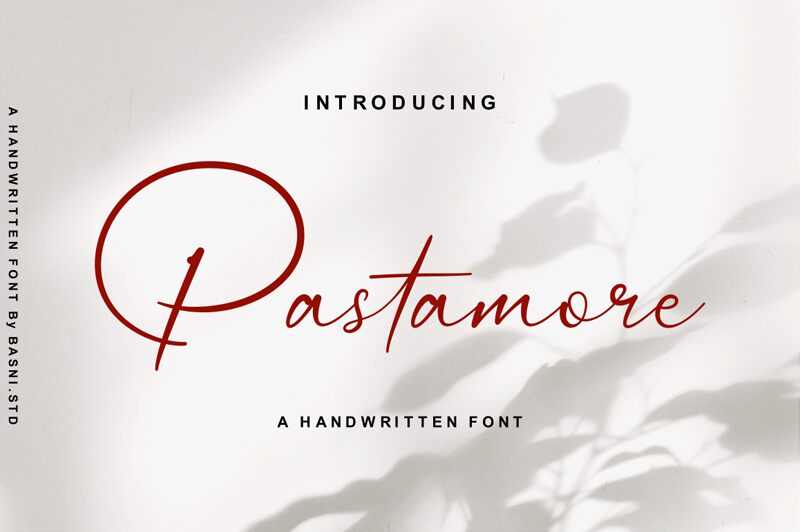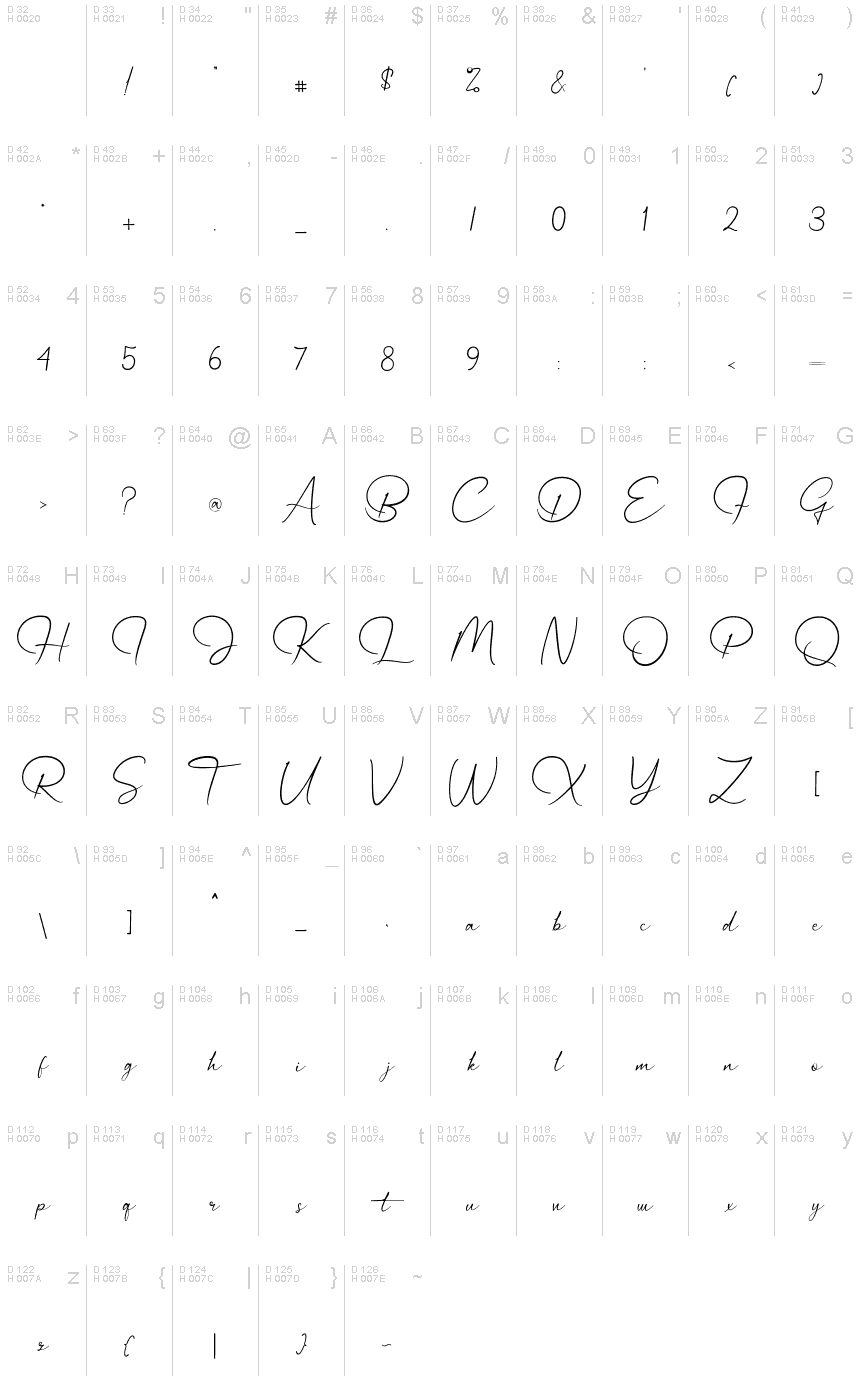
Pastamore
Pastamore is a charming and whimsical handwritten font designed by Basni.std, perfect for adding a touch of playfulness to any project. With its light weight, this font exudes an airy and delicate feel that's ideal for designs that require a softer touch. Pastamore's loose strokes and organic flow make it an excellent choice for invitations, greeting cards, or anything that requires a personal touch. This font is also suitable for food-related projects such as menus or recipe books where the casual yet elegant style can help convey a warm and welcoming atmosphere.